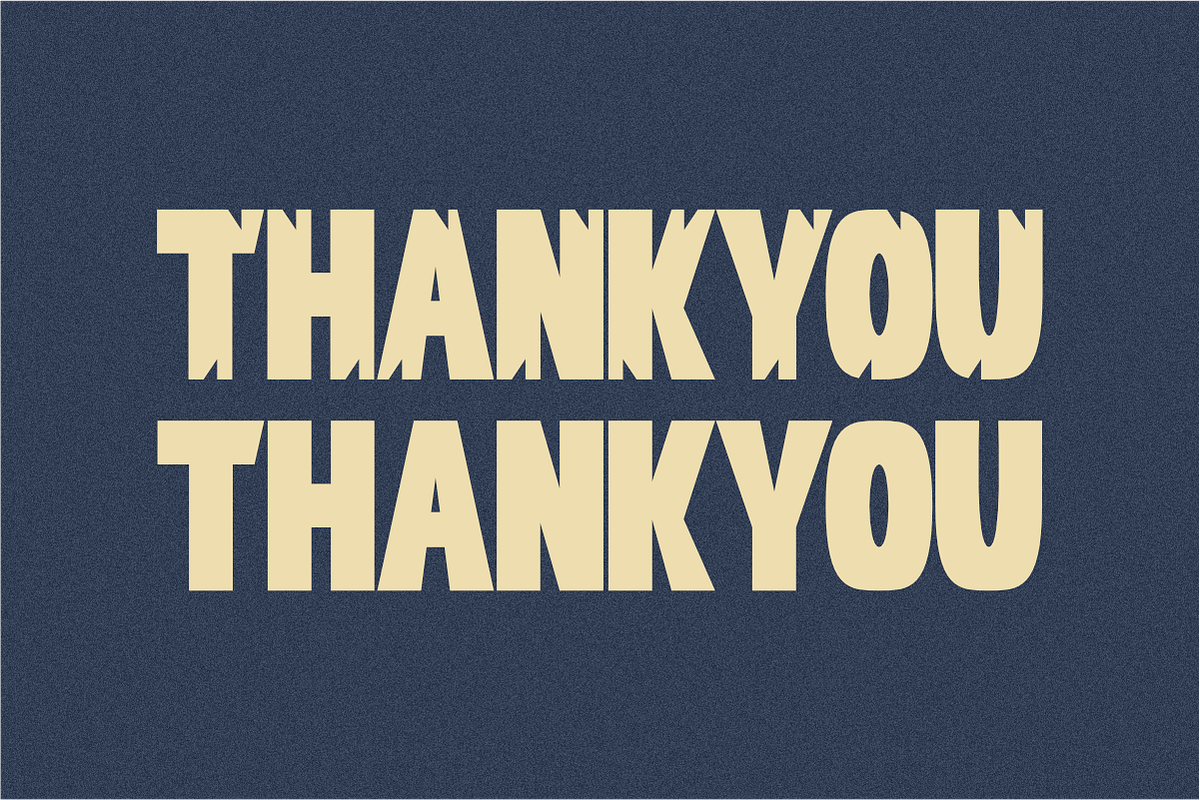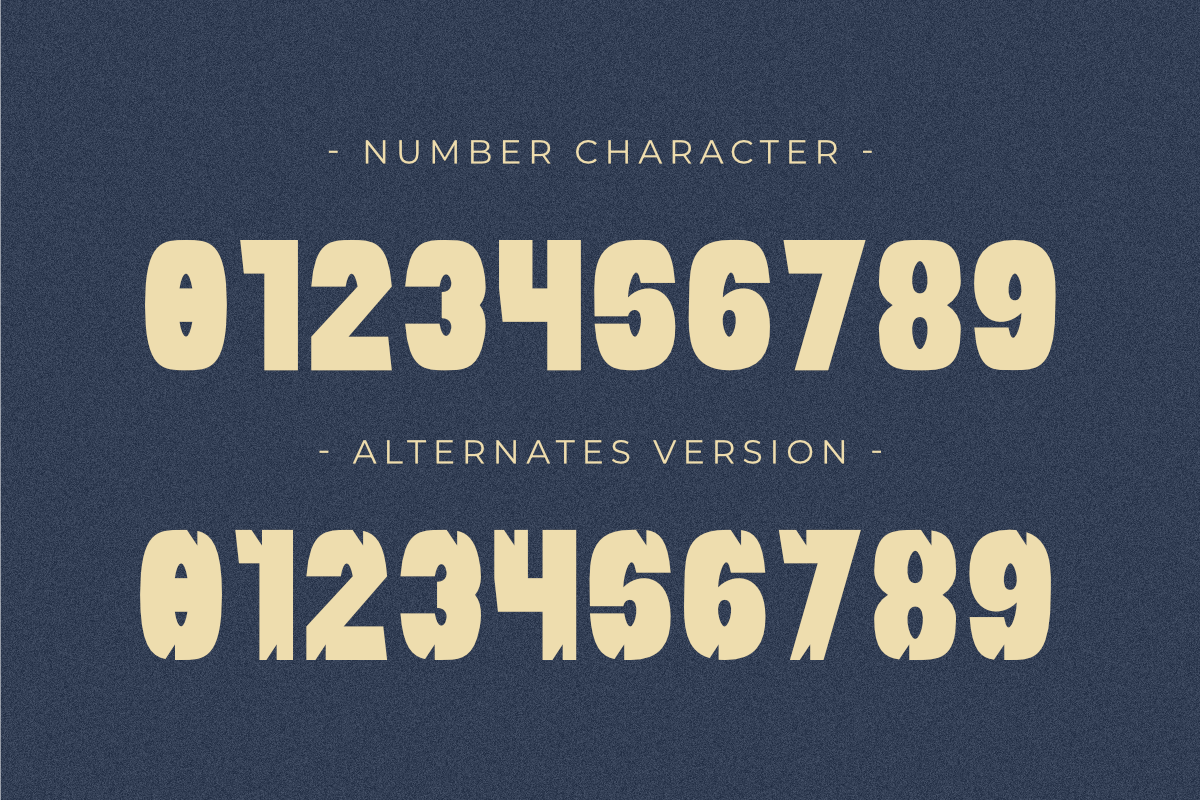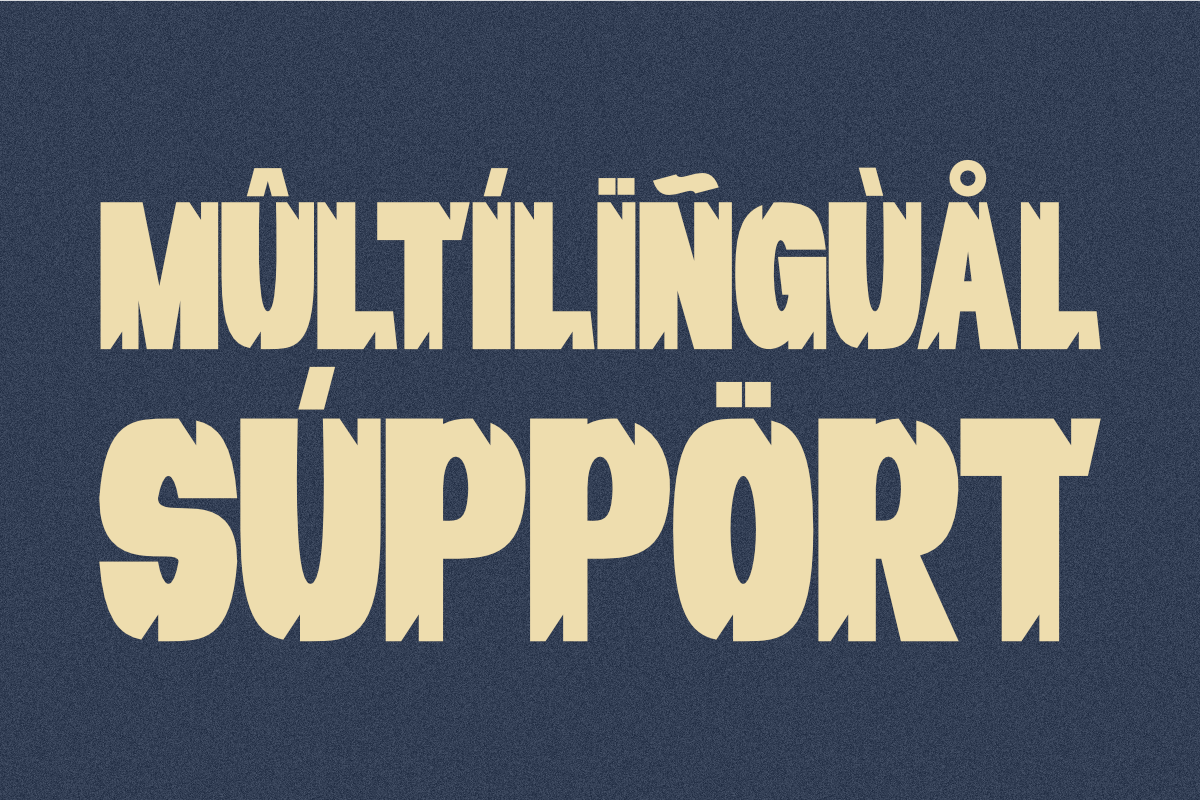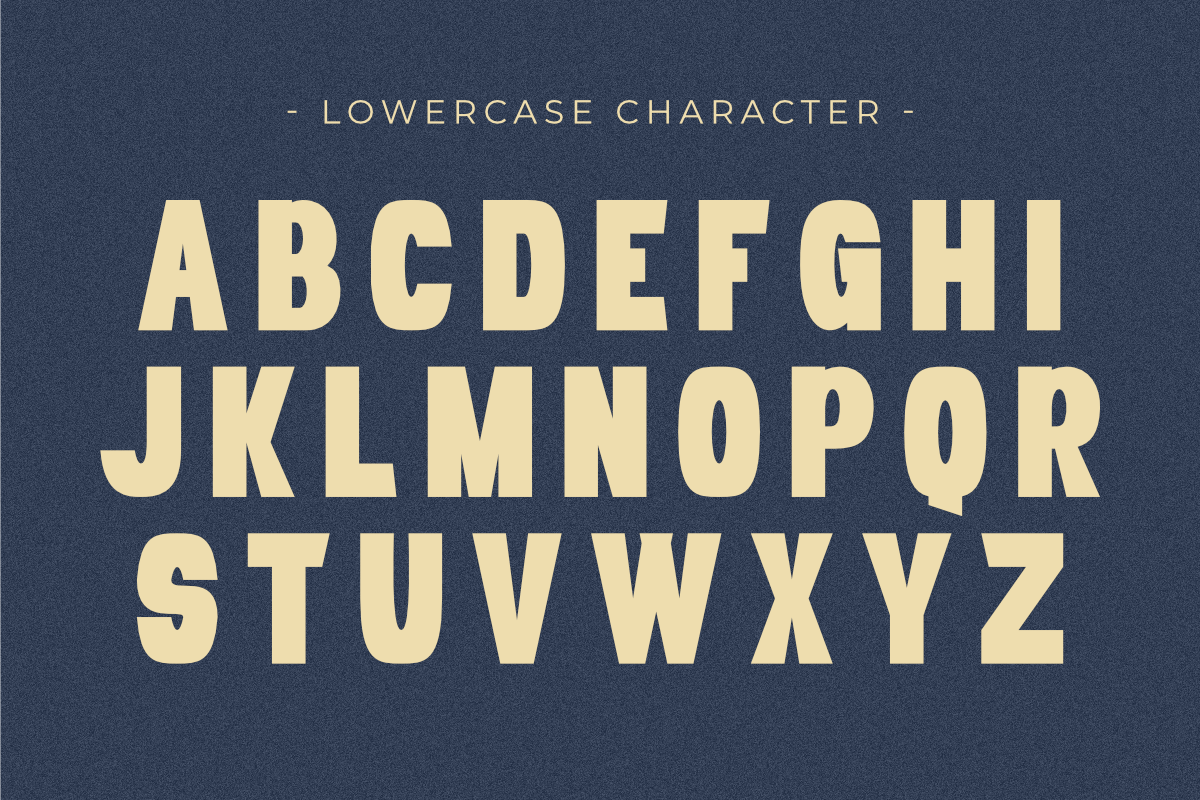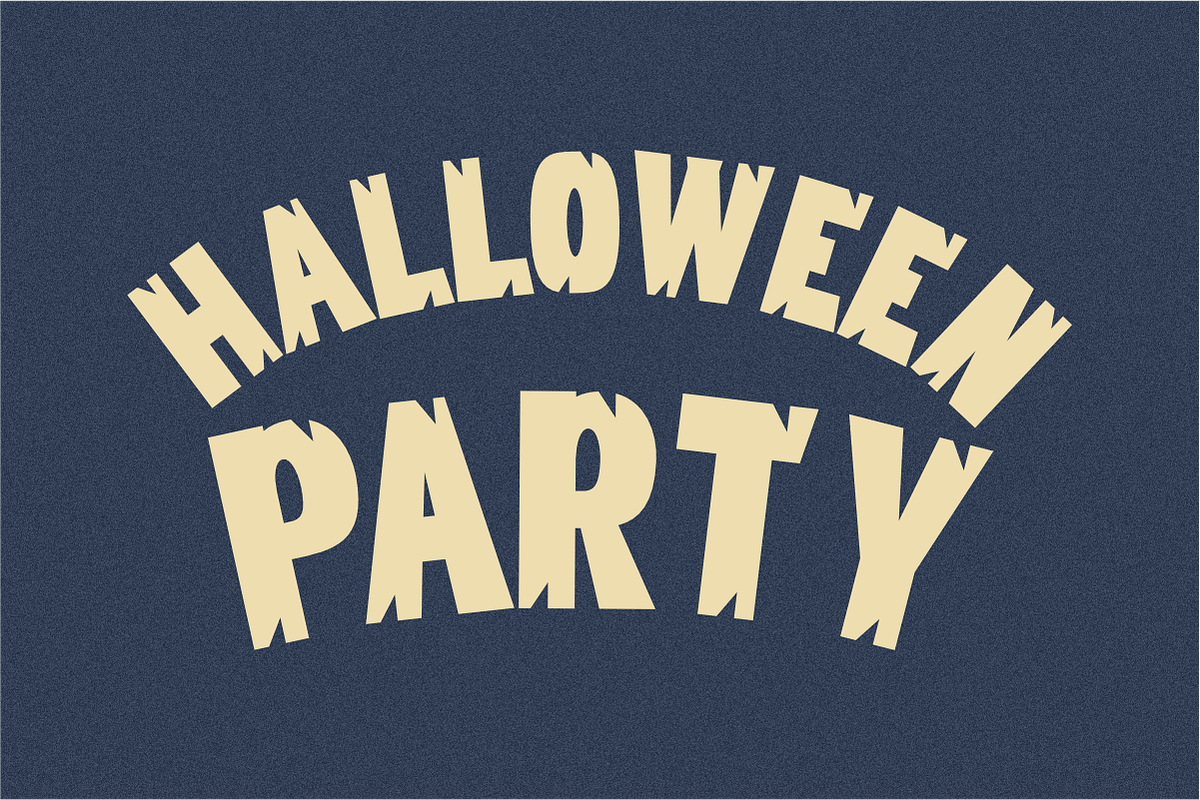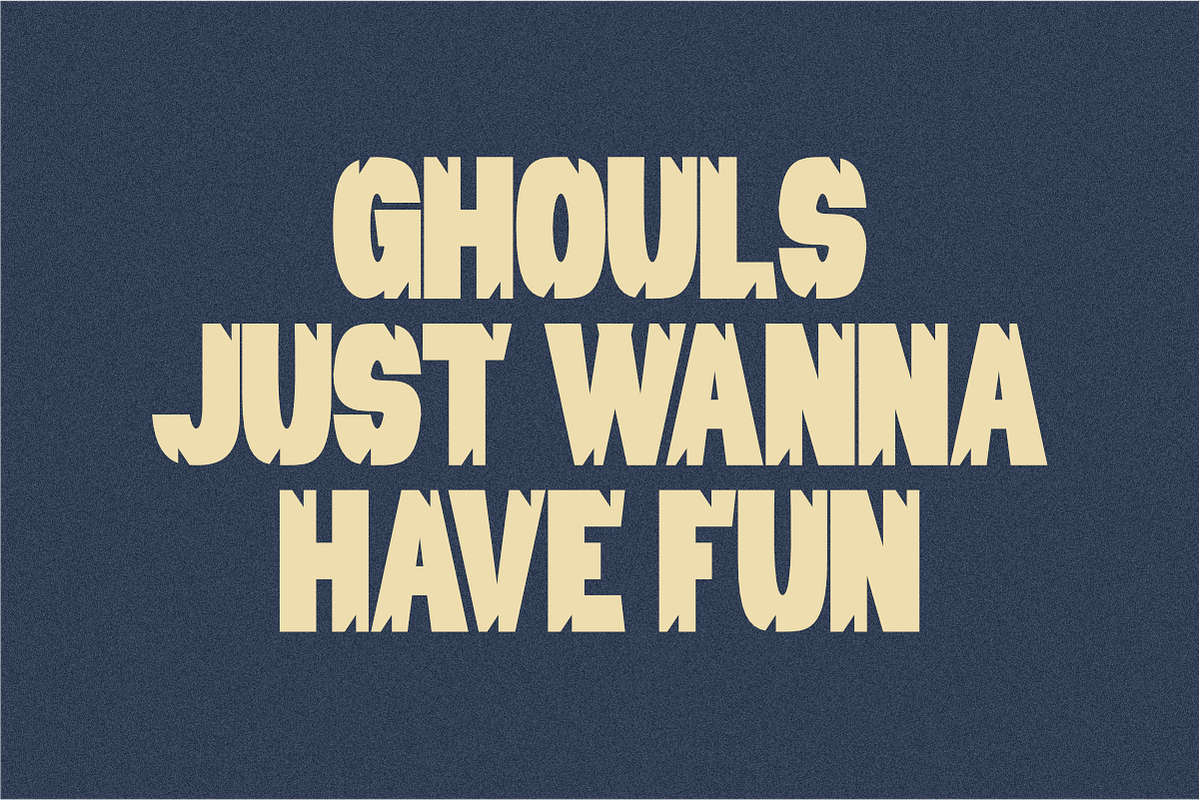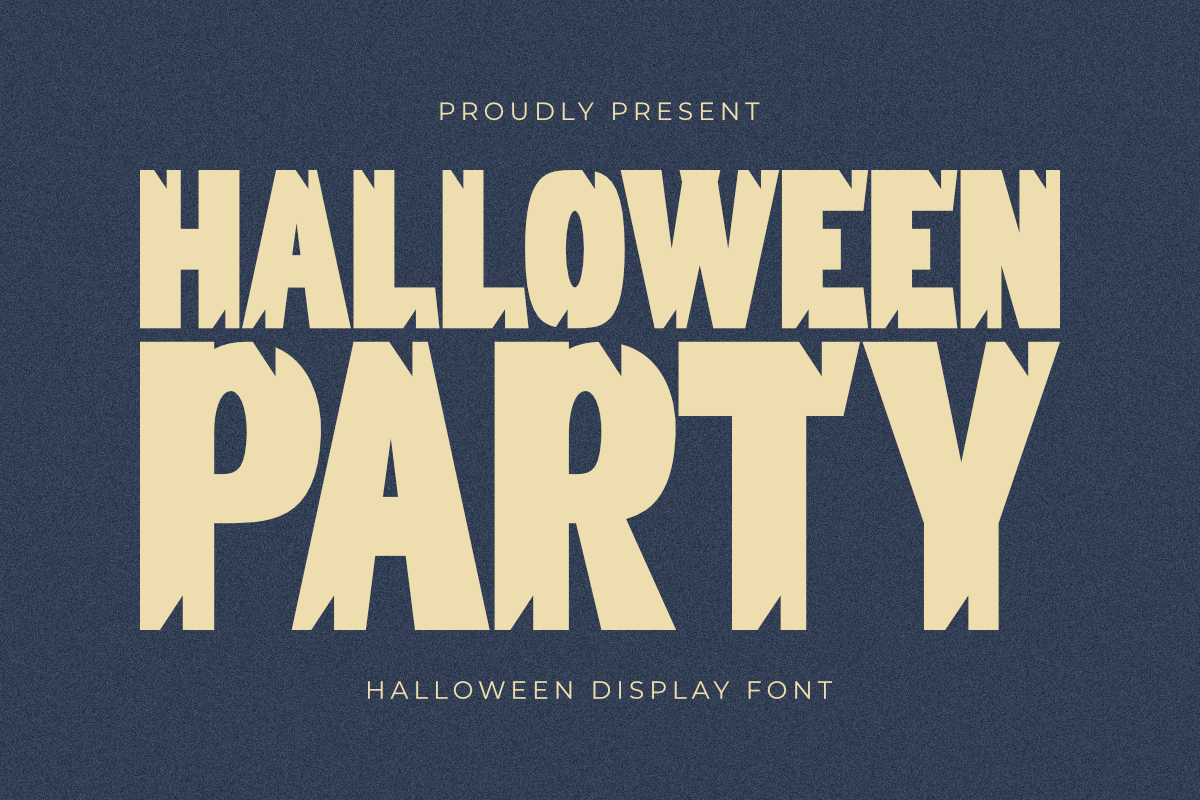
Halloween Party - Display Font
Halloween Party is a bold condensed display font with a Halloween theme. This playful and spooky typeface features a chunky design with slightly rounded edges, giving it a fun-loving yet eerie vibe. It's the perfect font for party invitations, posters, and T-shirt designs. Its strong visual presence and distinctive style ensure your message stands out and captures the festive spirit of the season.